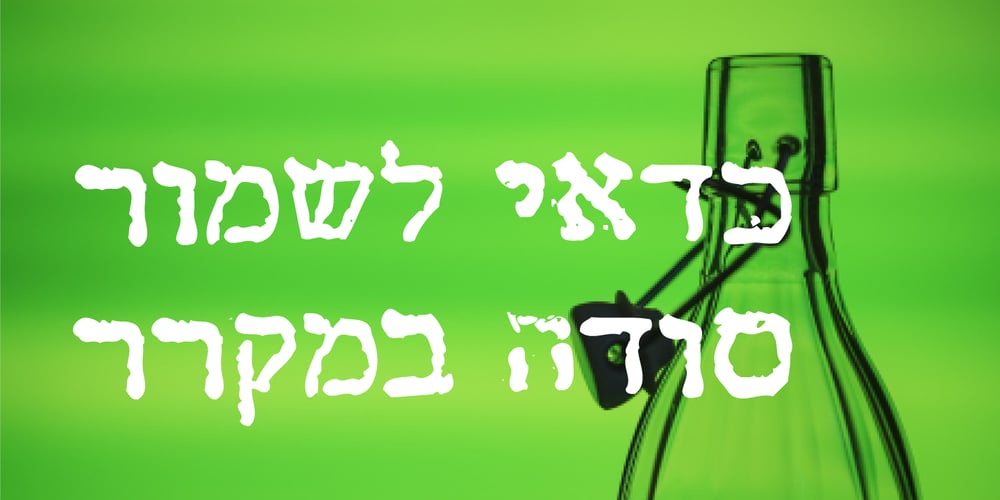
MF Remington Font Family was designed by Zvika Rosenberg and published by Masterfont. MF Remington contains 4 styles and family package options. This typical letters of an old writing machine used in the early 20th century delivers its rough look and scary atmosphere.